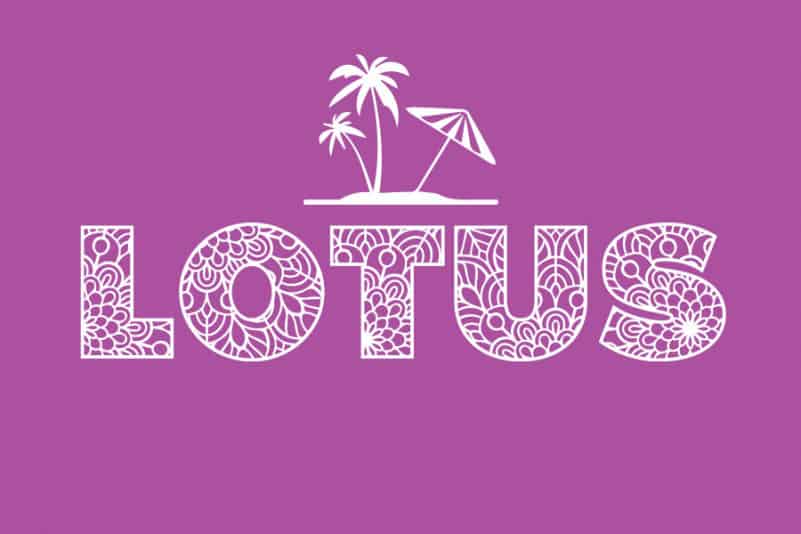
Lotus Display Font
Lotus Display Font is a bold and chunky lettered display font. Add this font to your creative ideas and notice how it will make them stand out!
the latest style letters are perfect for wall displays, wedding invitations, social media post logos,
advertisements, product packaging, product designs, labels, photography, watermarks, invitations, stationery,
and any project that requires taste handwriting.